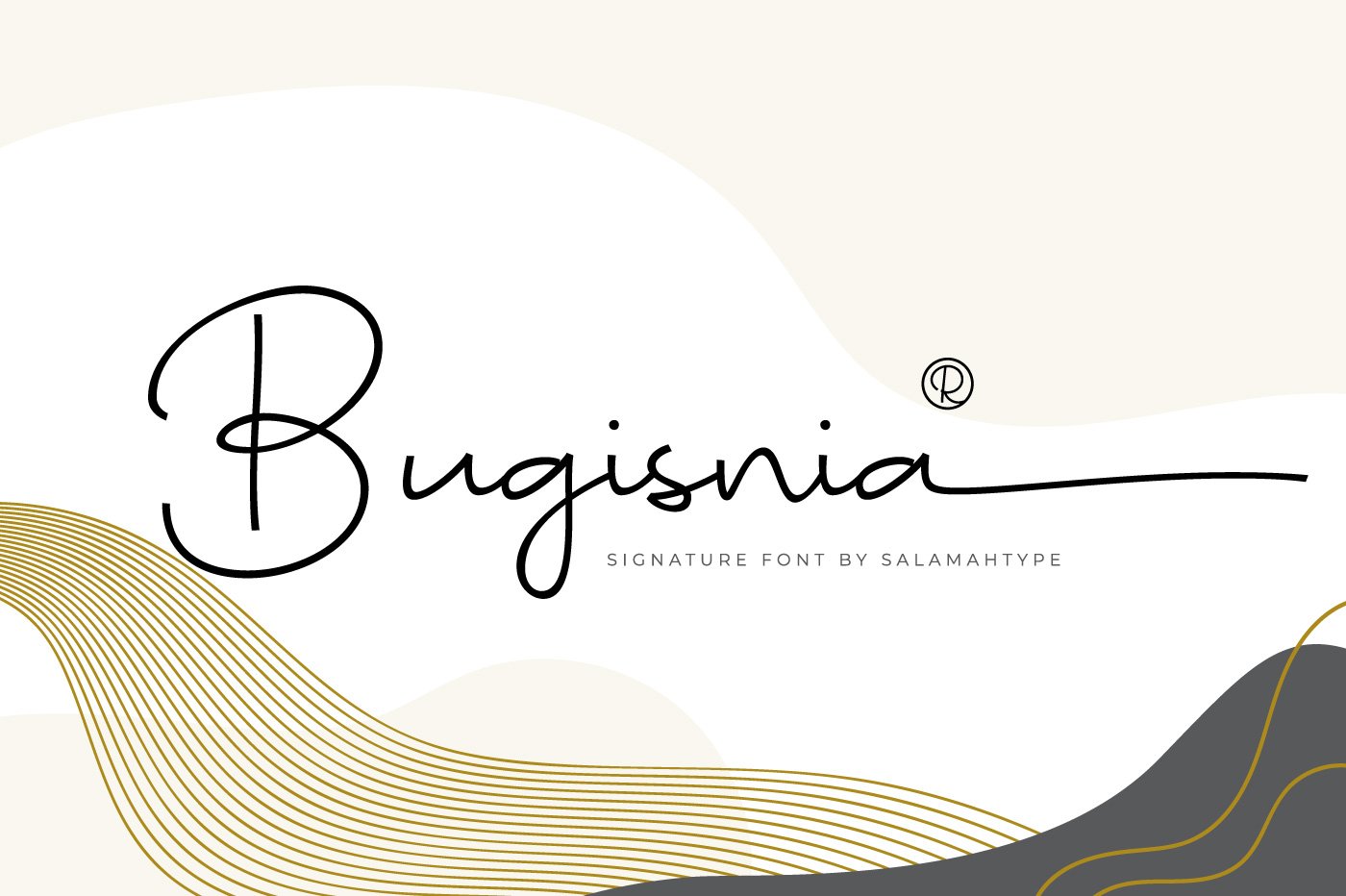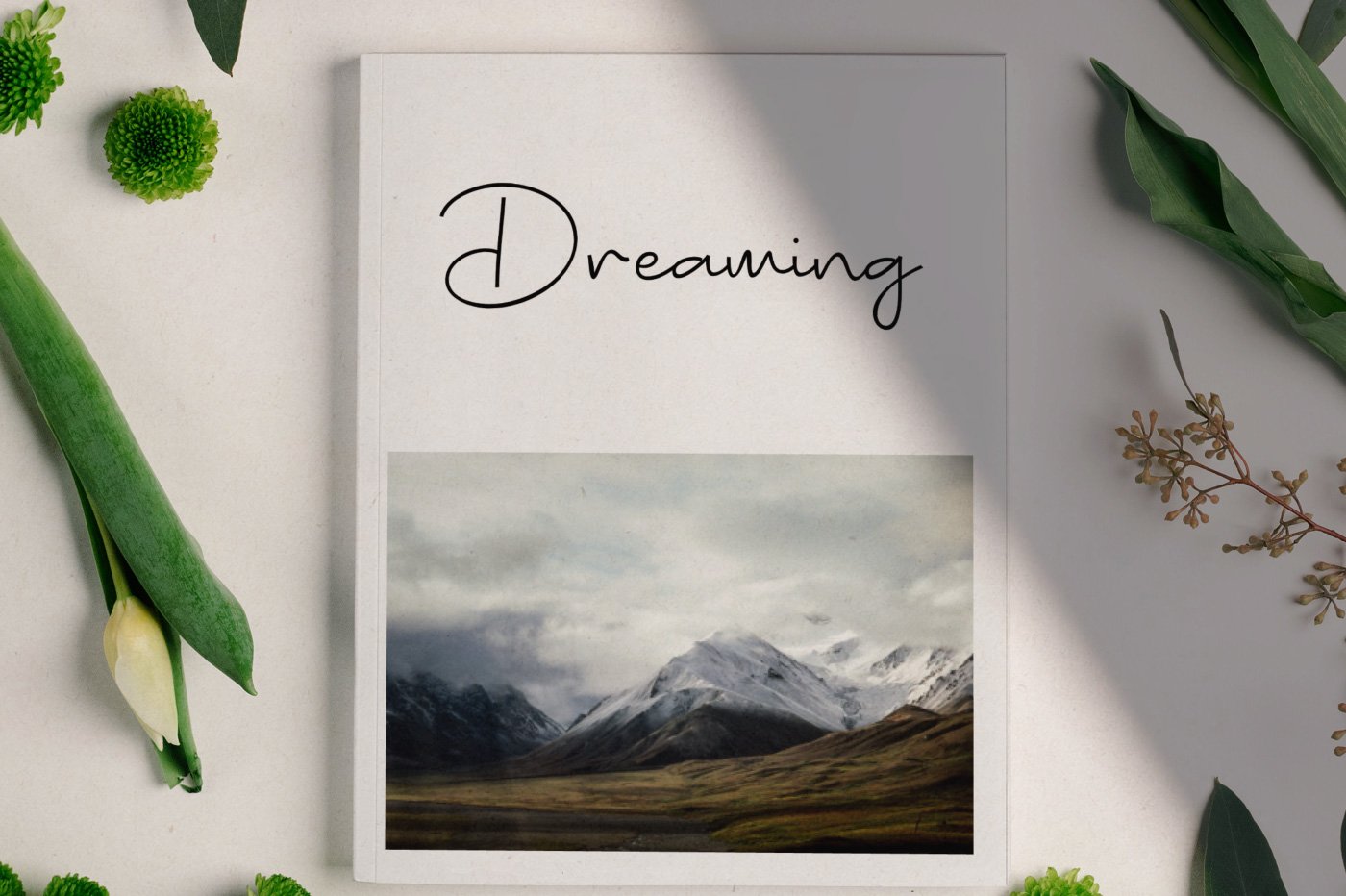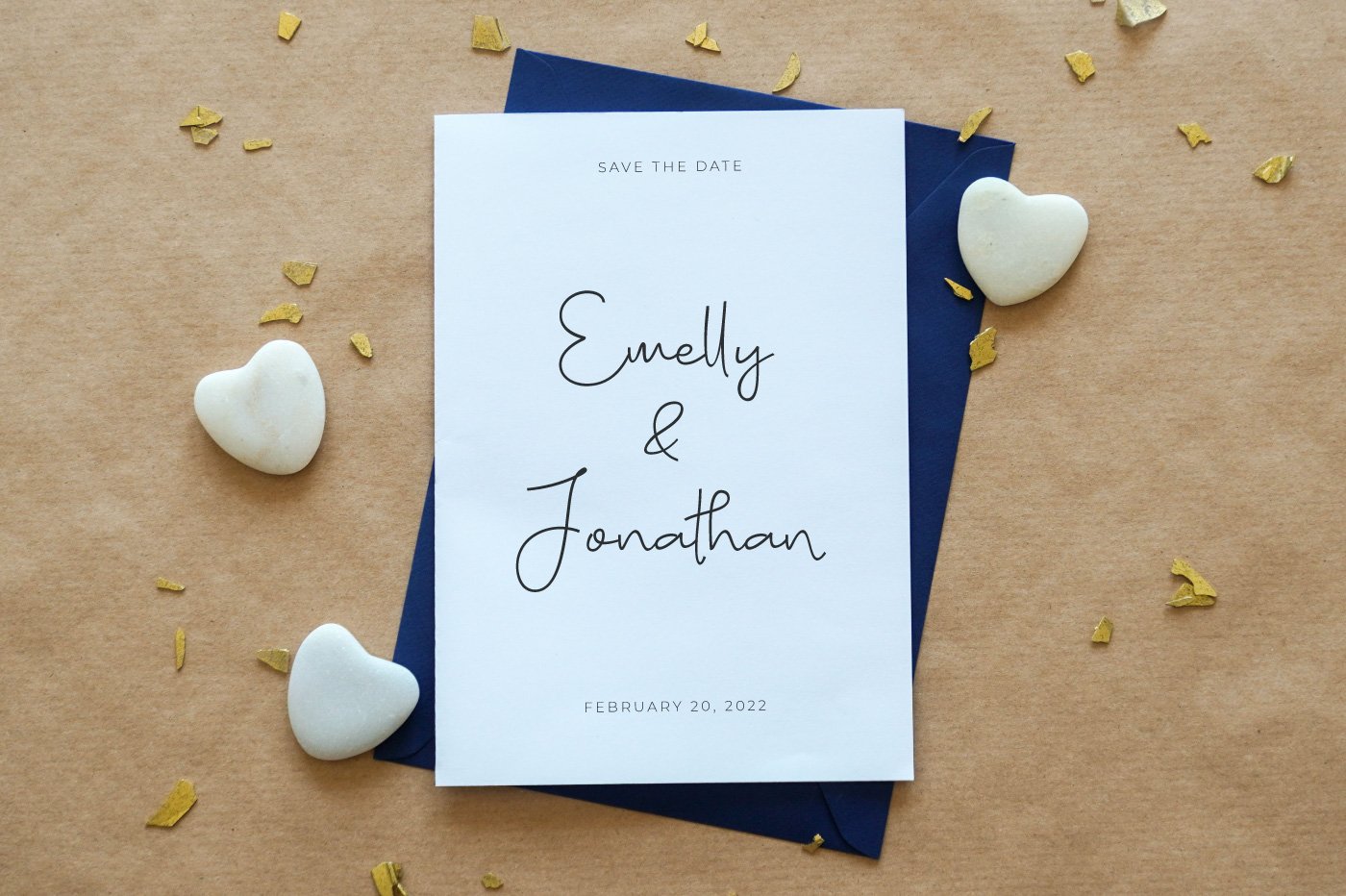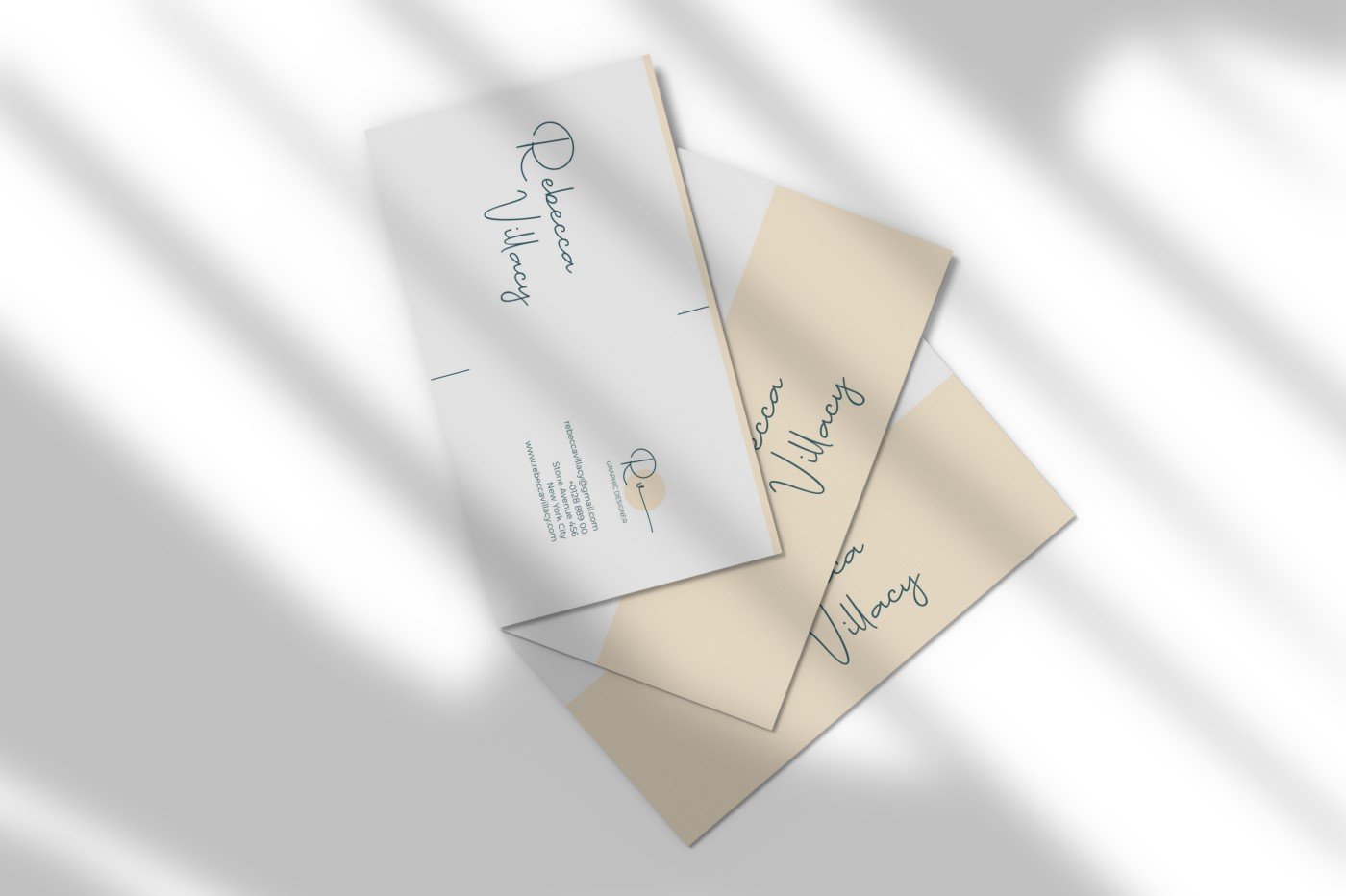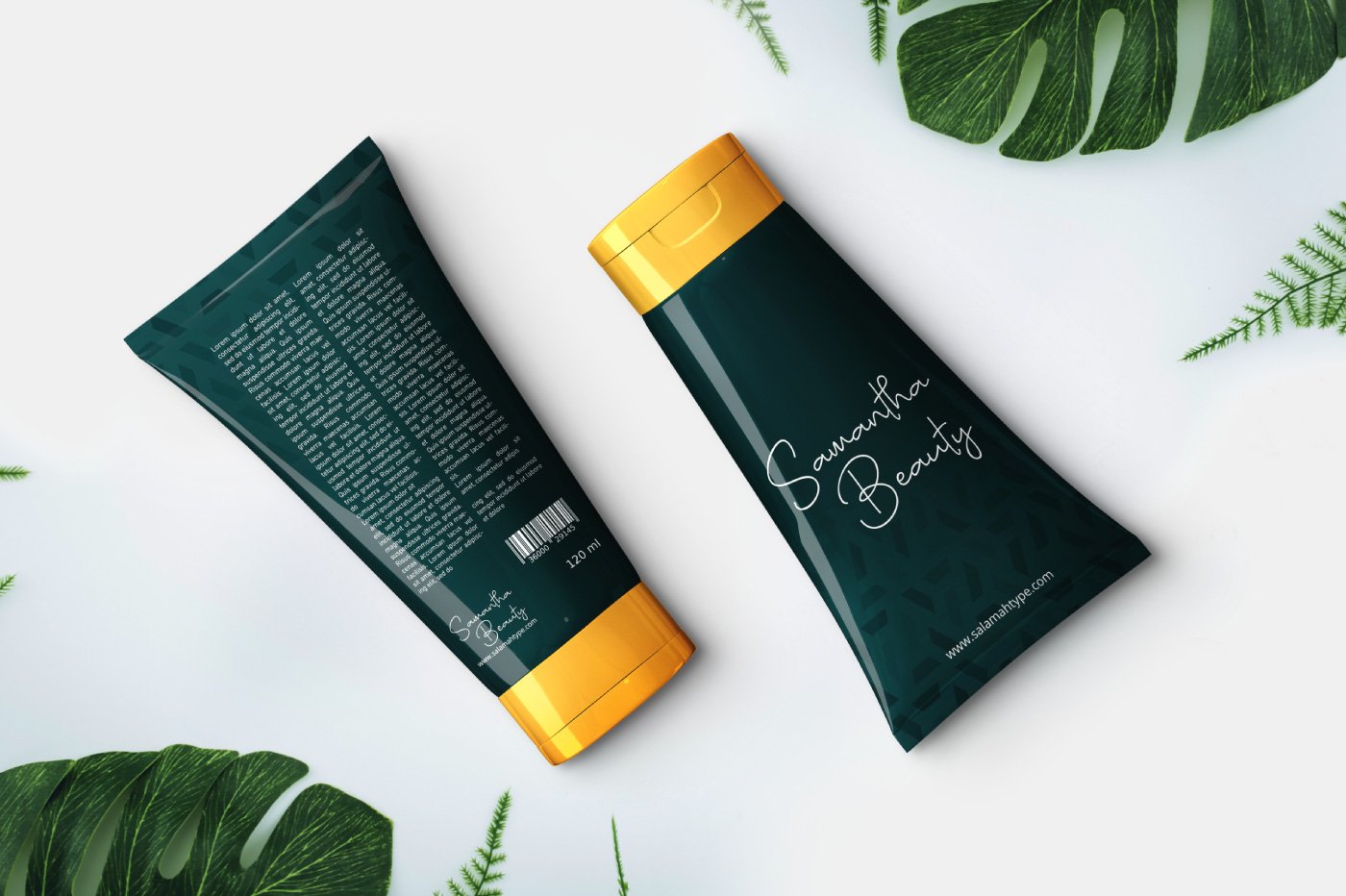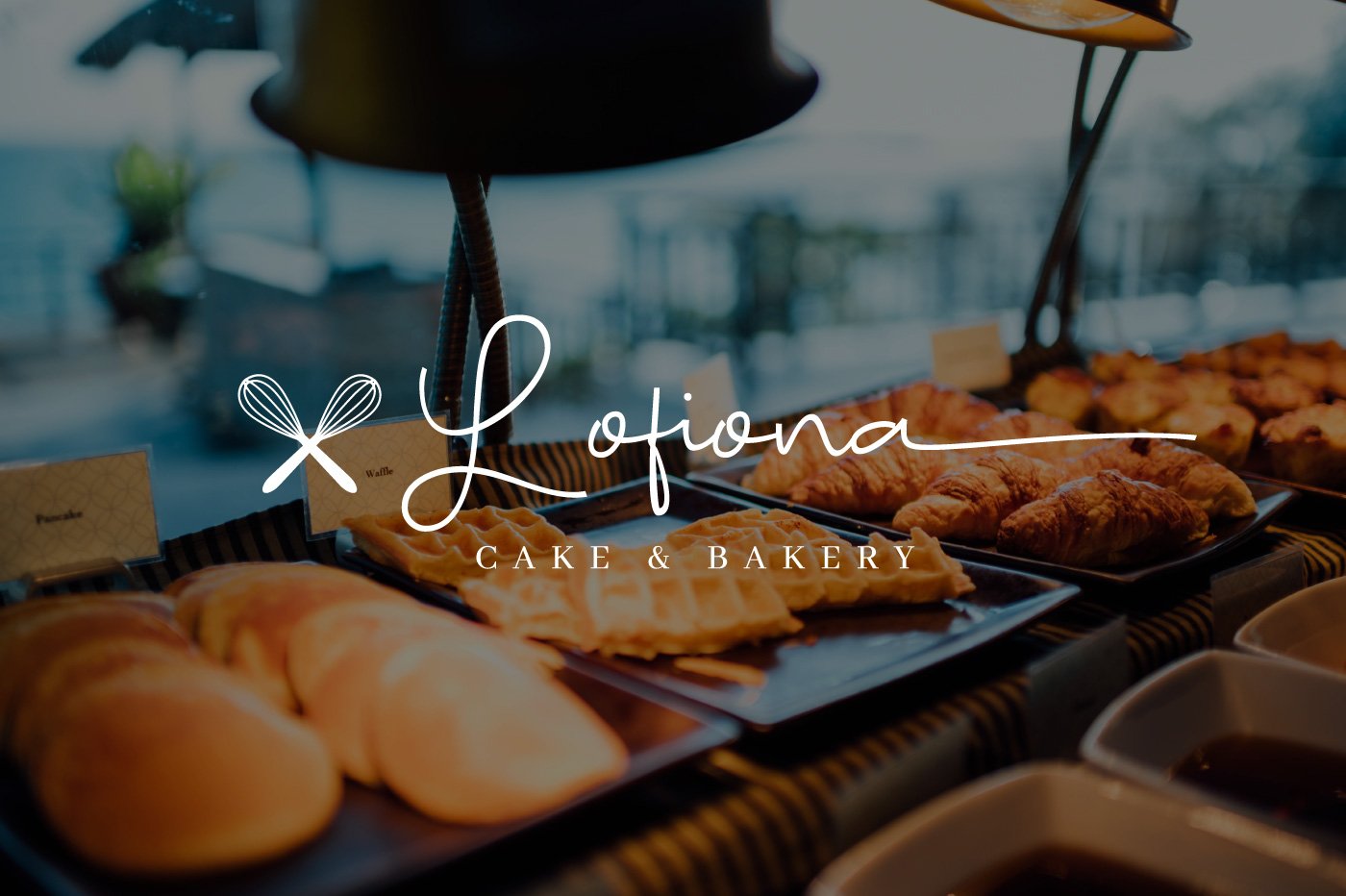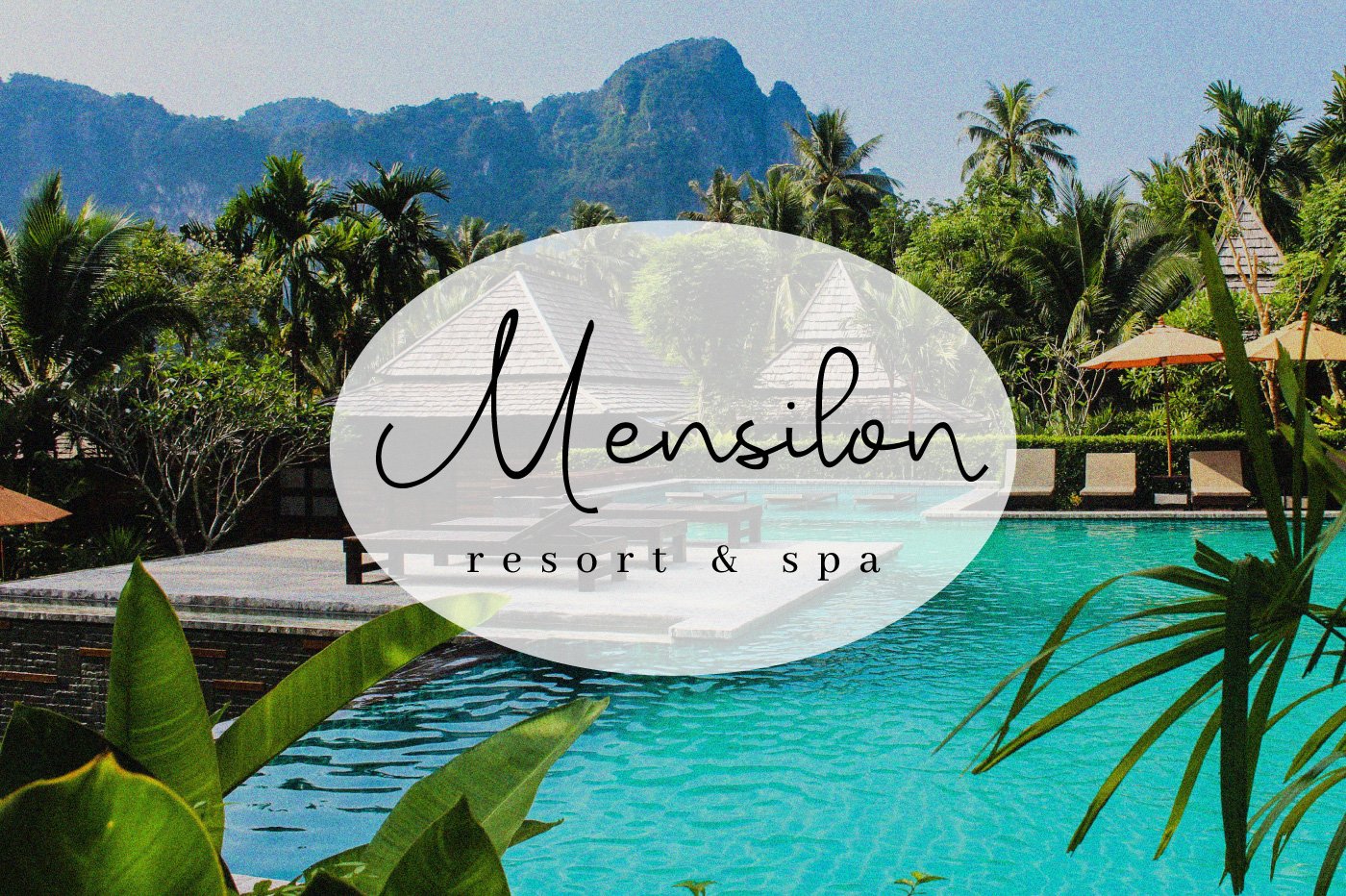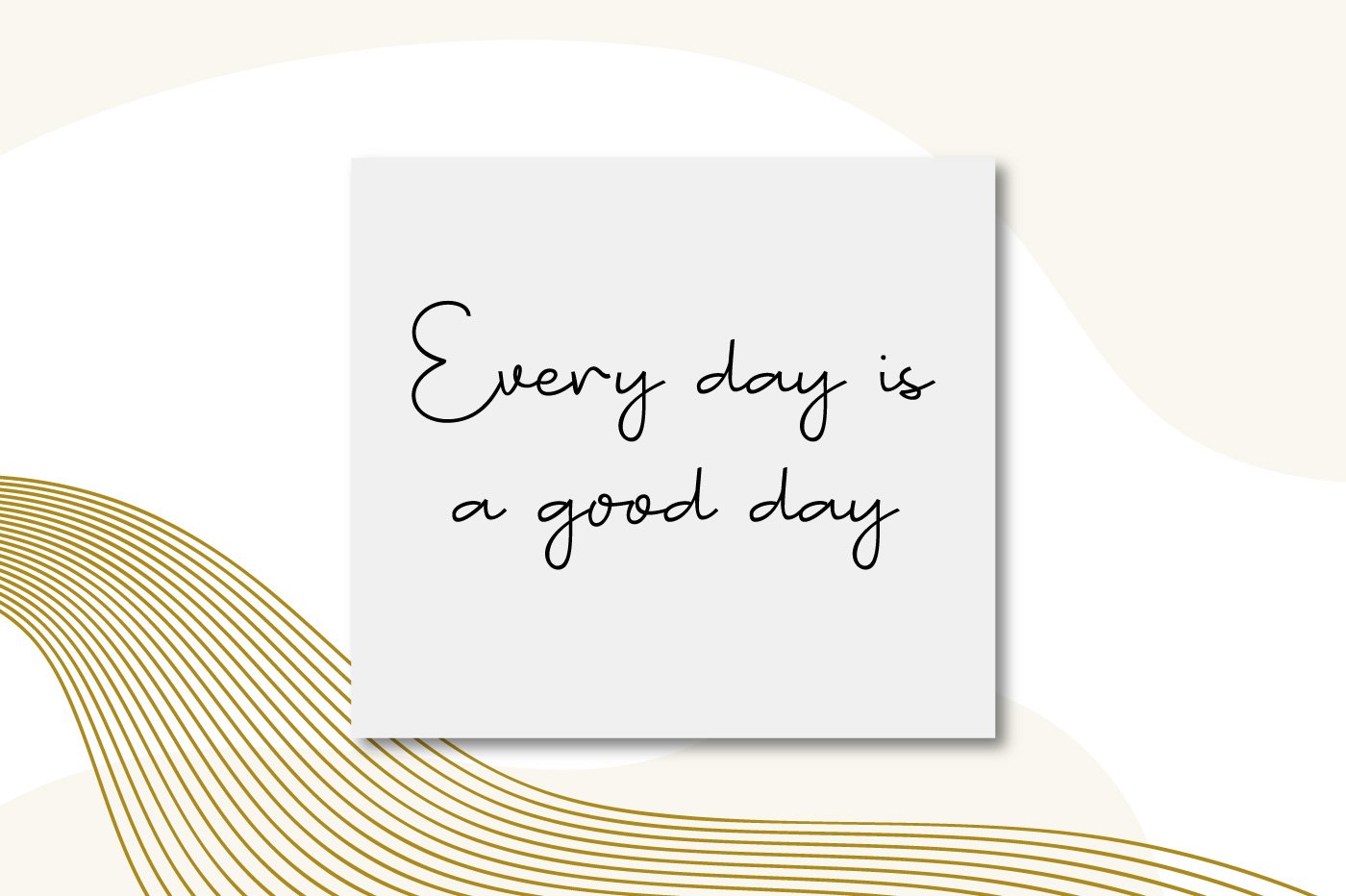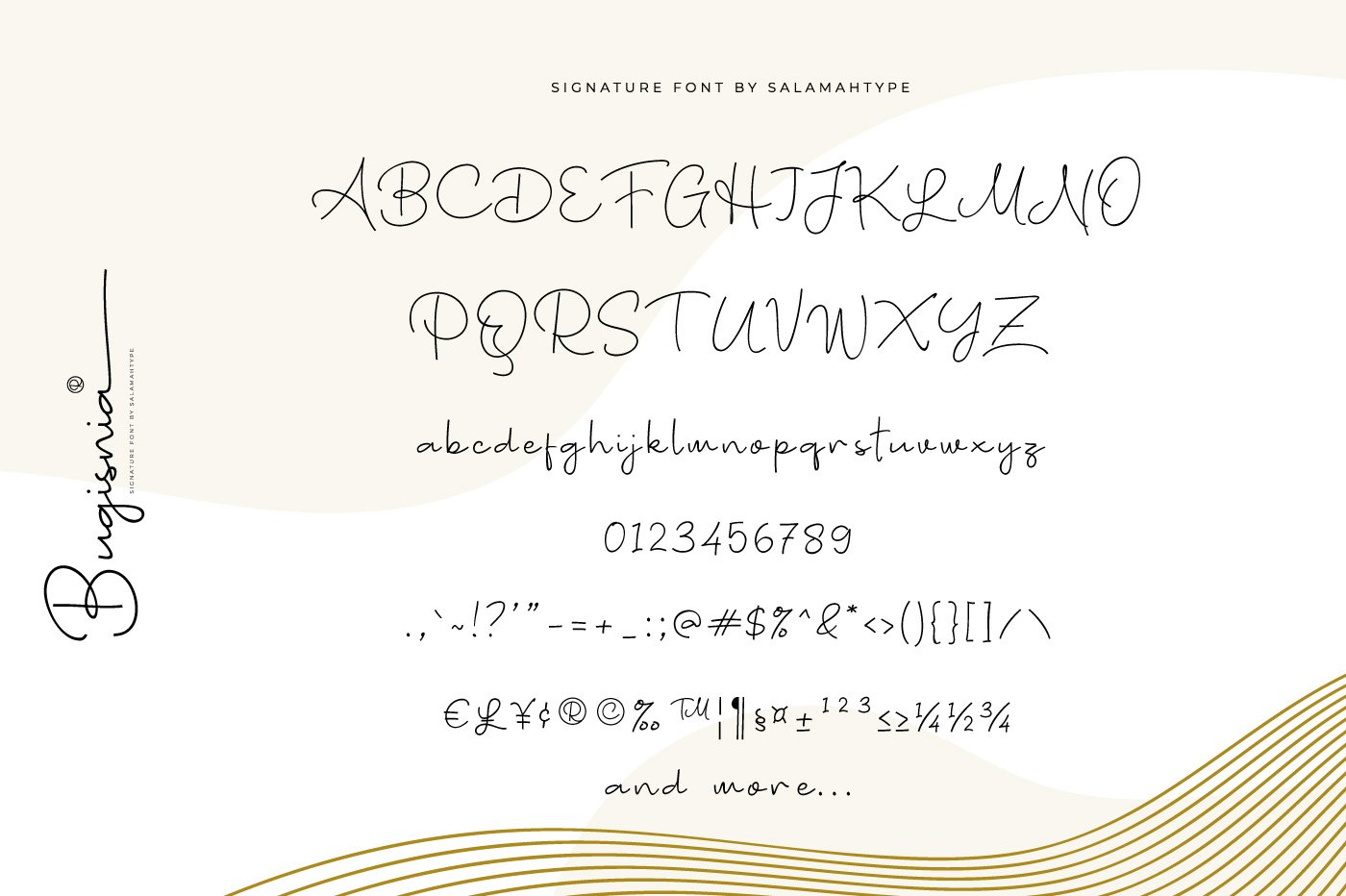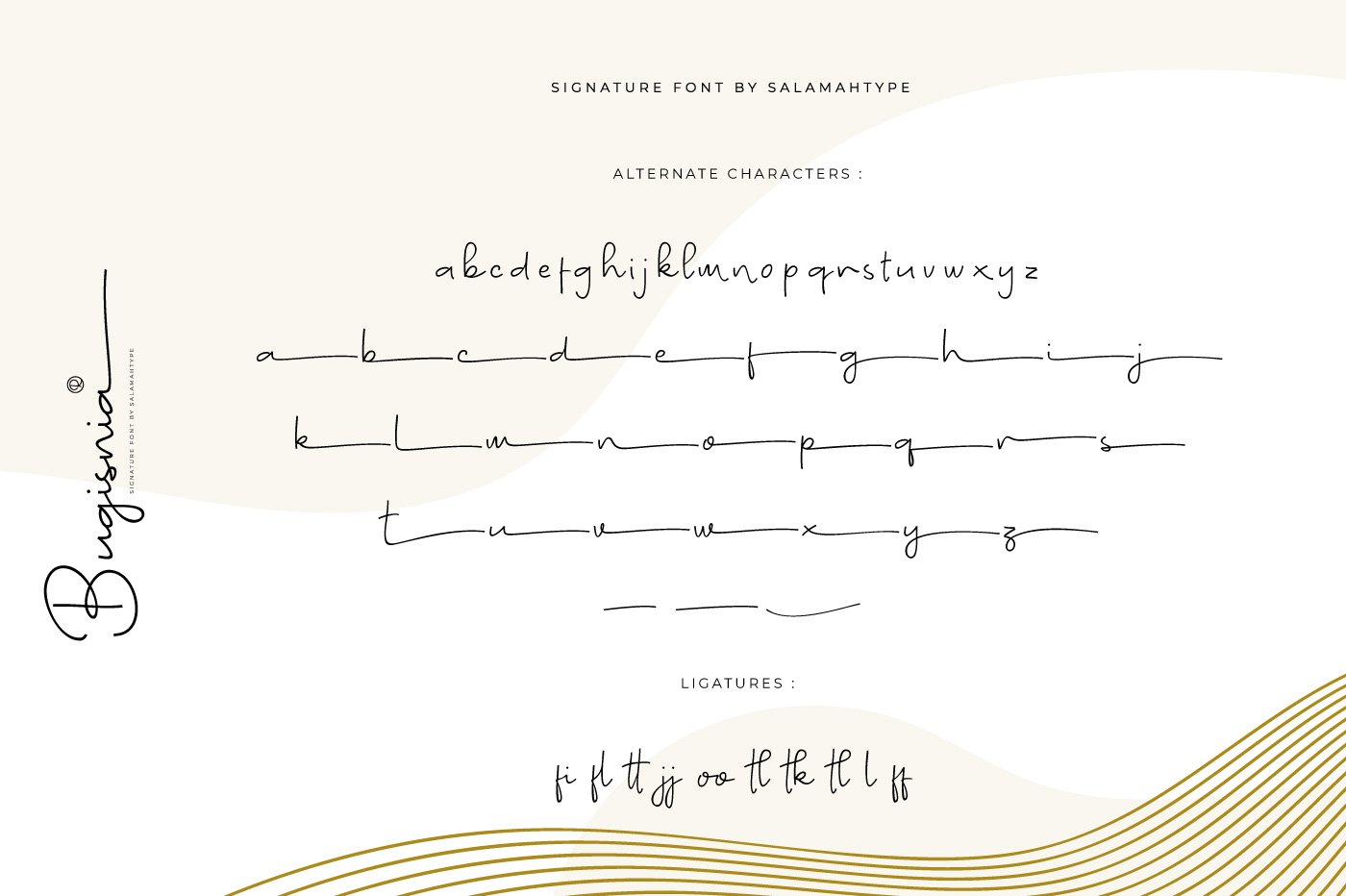
Bugisnia
Bugisnia is a handwritten script/signature font with natural look and feel. This font is perfect for logo, and the other various forms such as invitations, labels, magazines, books, greeting cards, packaging, fashion, make up, stationery, novels, labels or any type of advertising purpose, photography, and more.
Features:
• Standard and Multilingual Glyphs
• Swashes & Alternate Characters
Bugisnia Signature Font